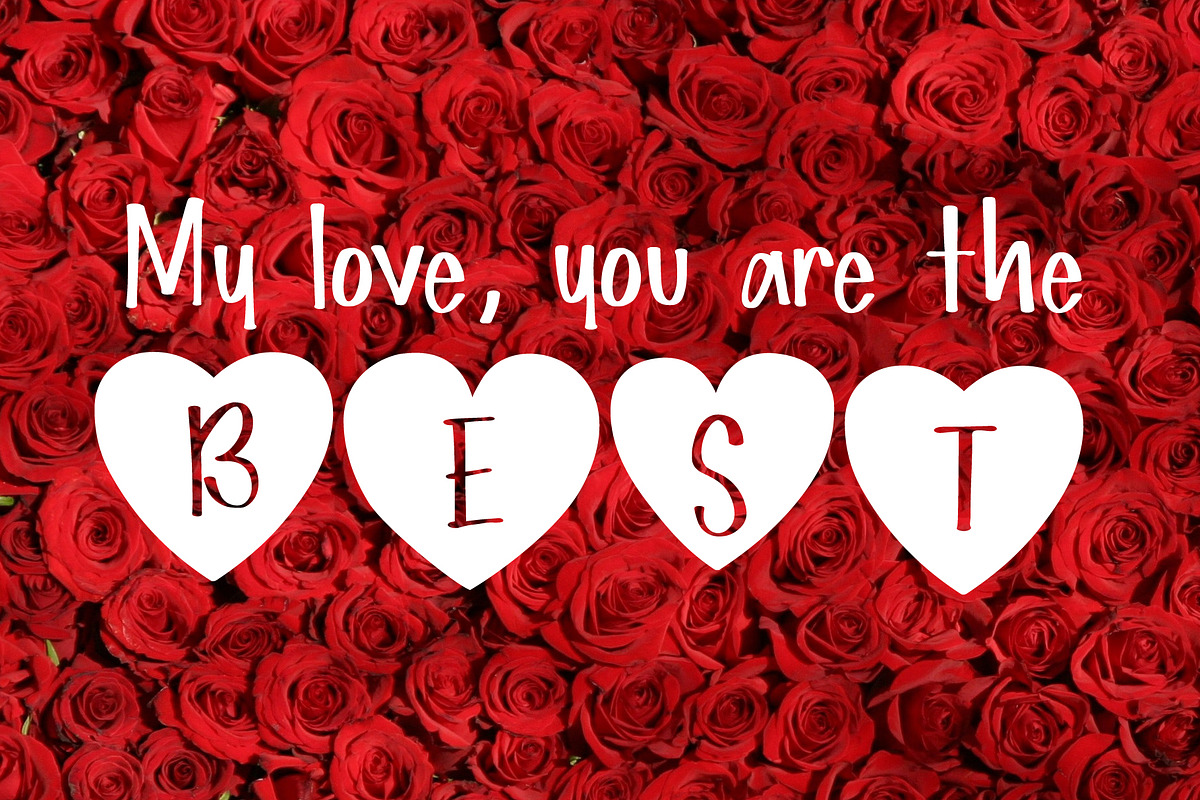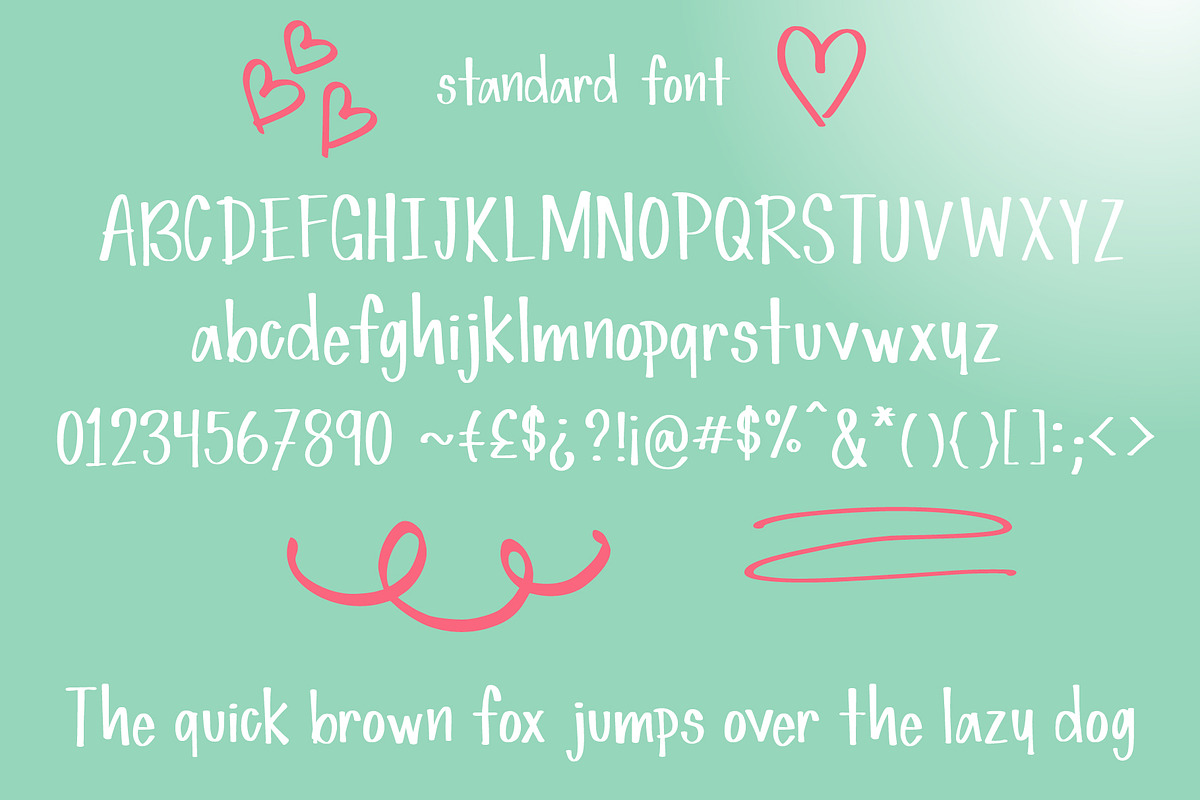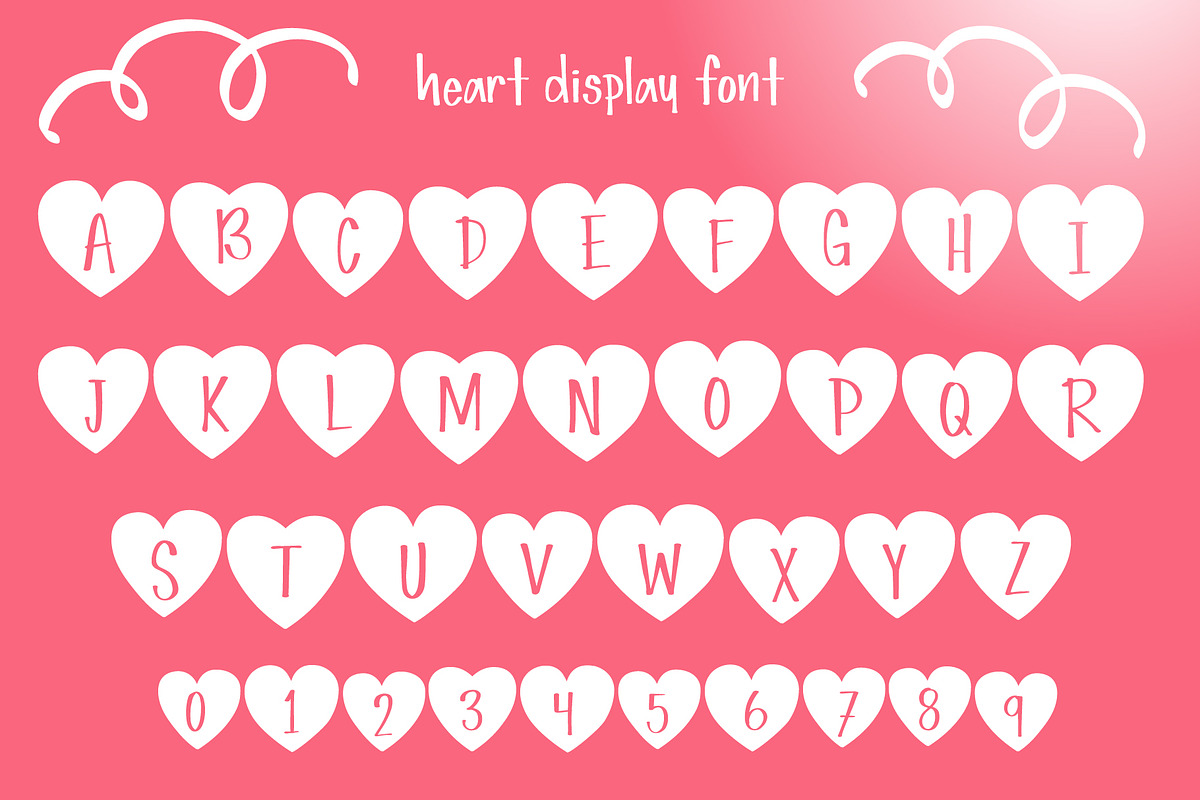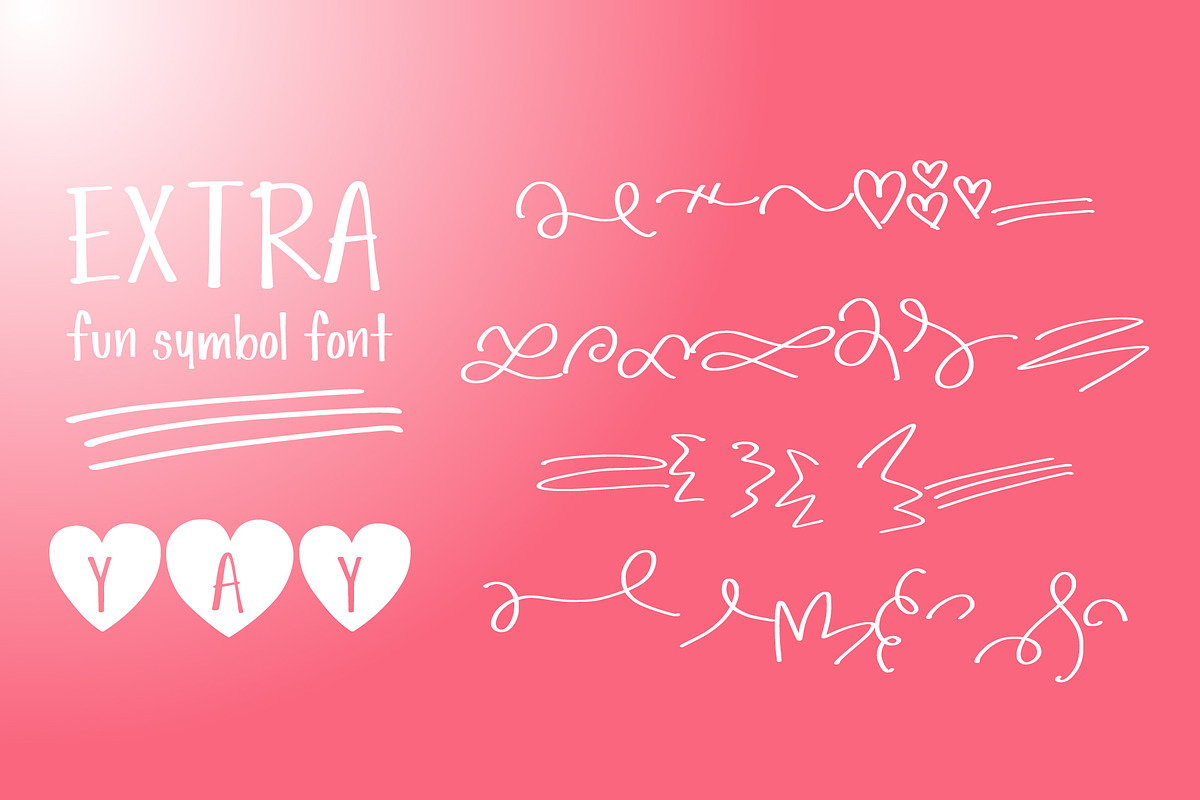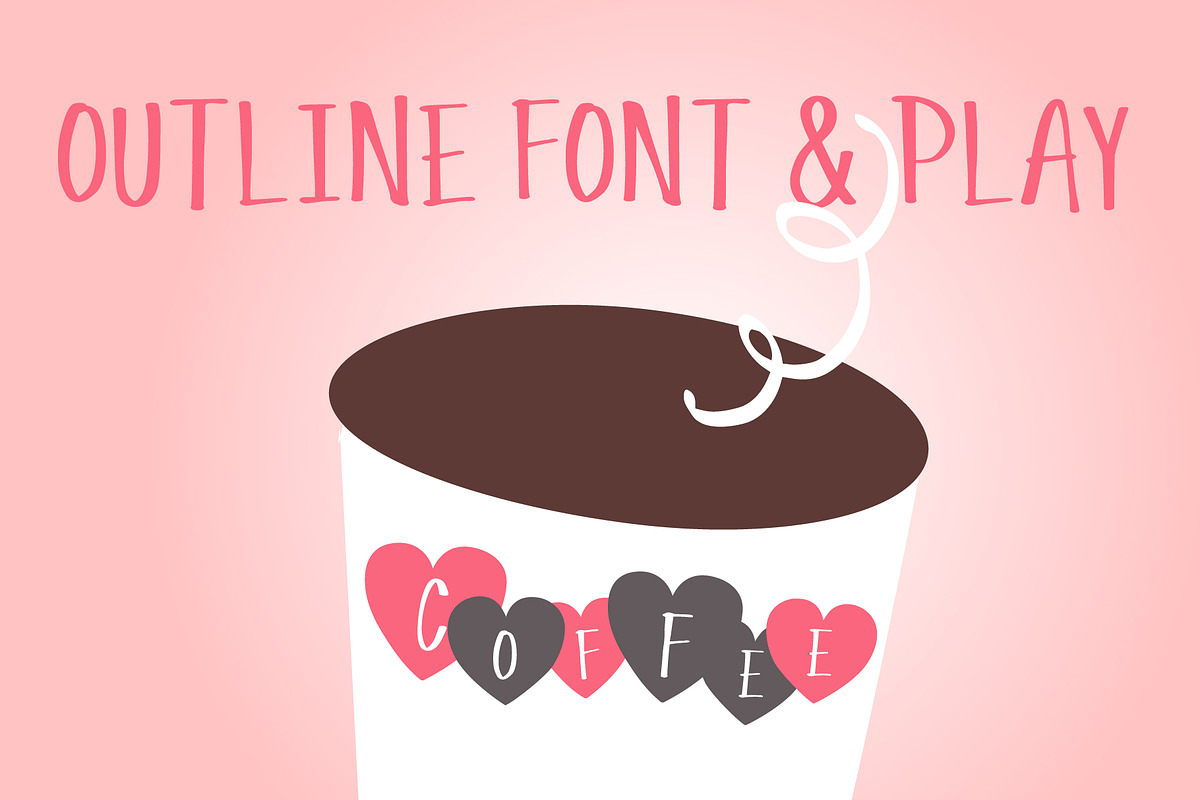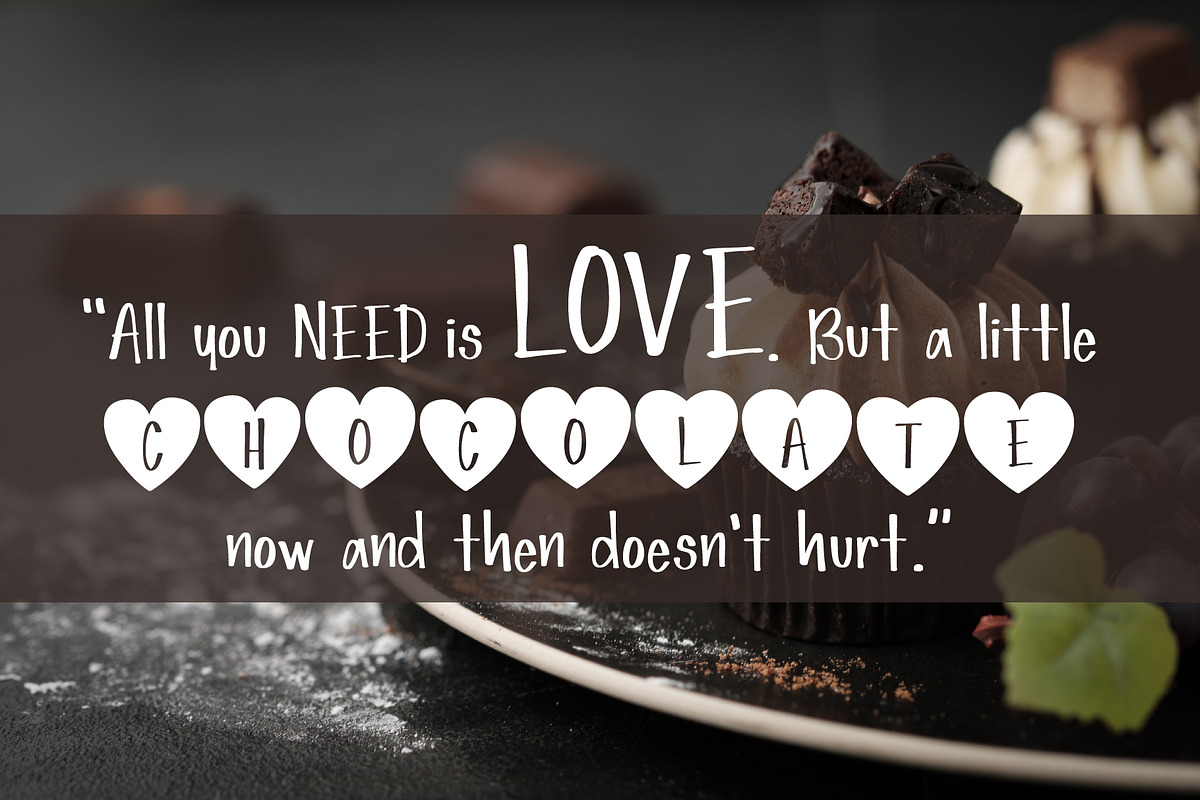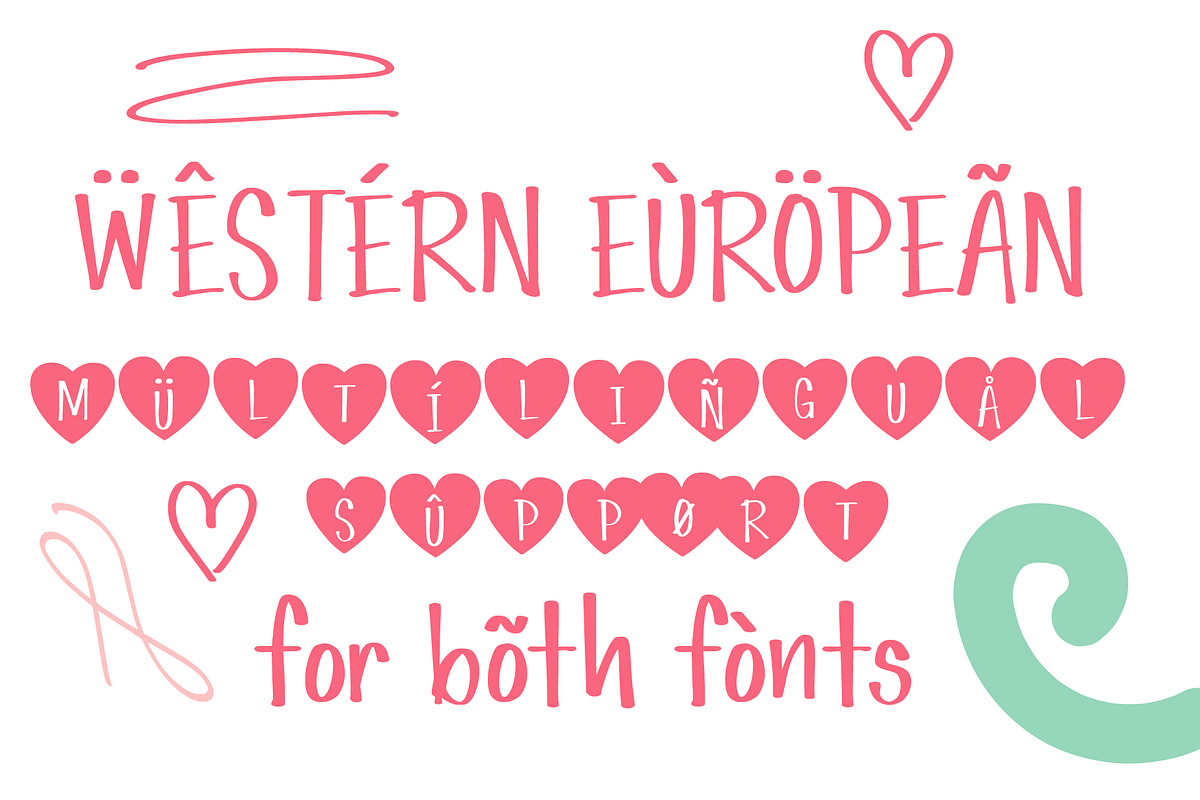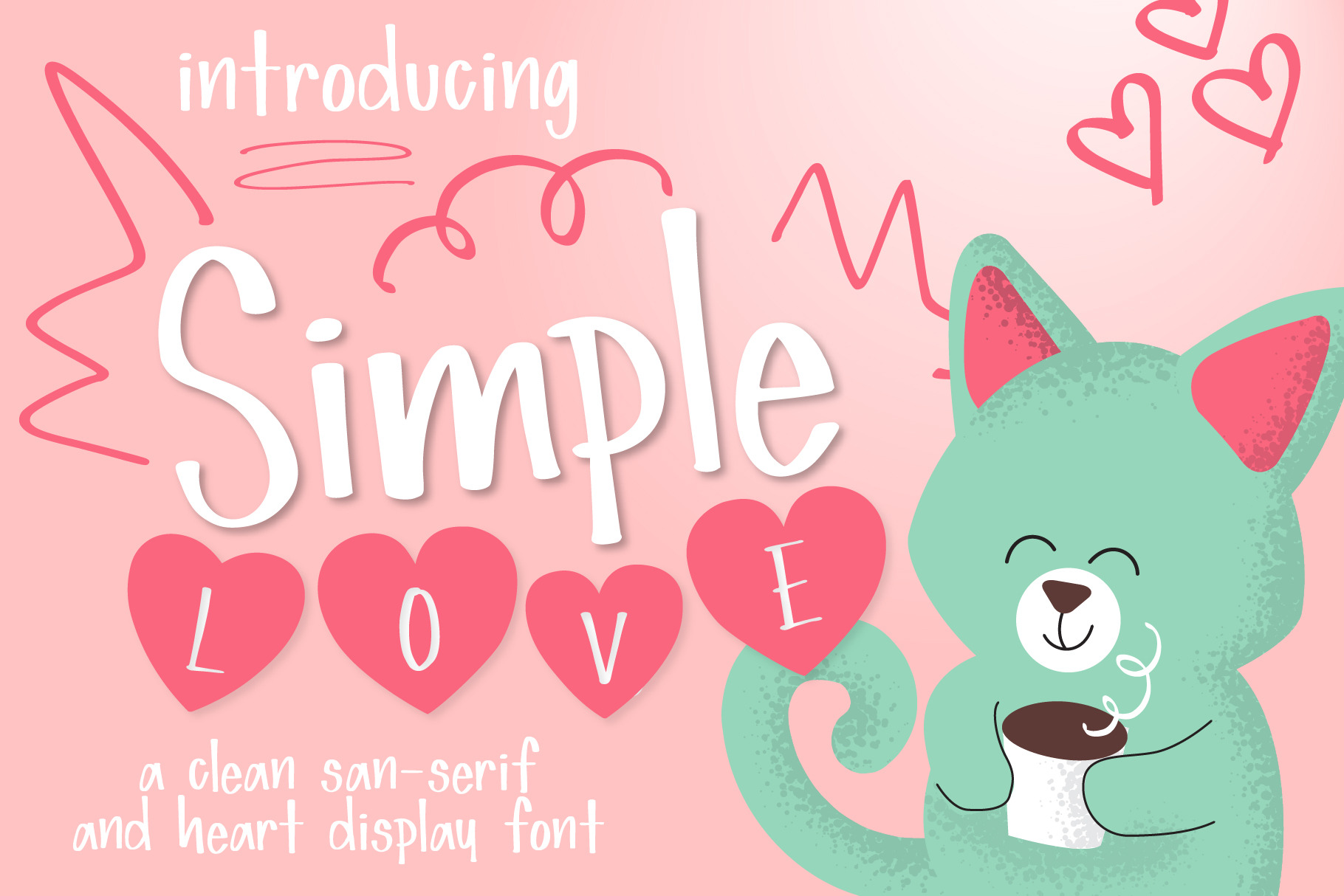
Simple Love Font
Introducing, Simple Love. A simple crafty fun san serif font inspired by Valentines Day. It also comes with a heart display font, just to add a little fun and for that love inspiration. Enjoy!. This PUA font is perfect for professional designer, social media, or crafters.